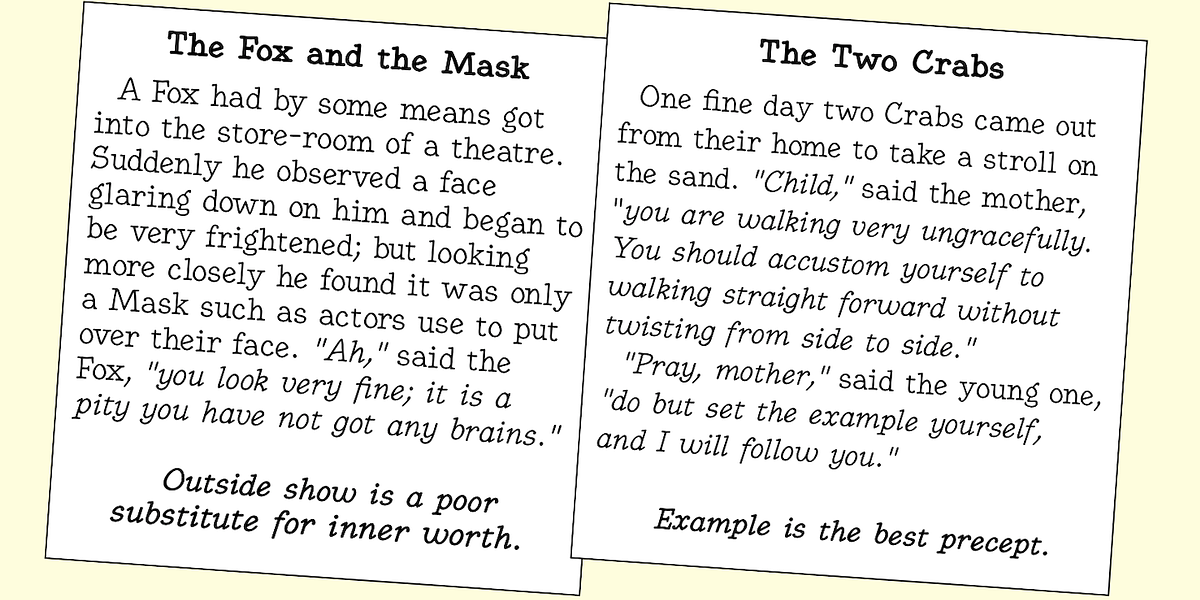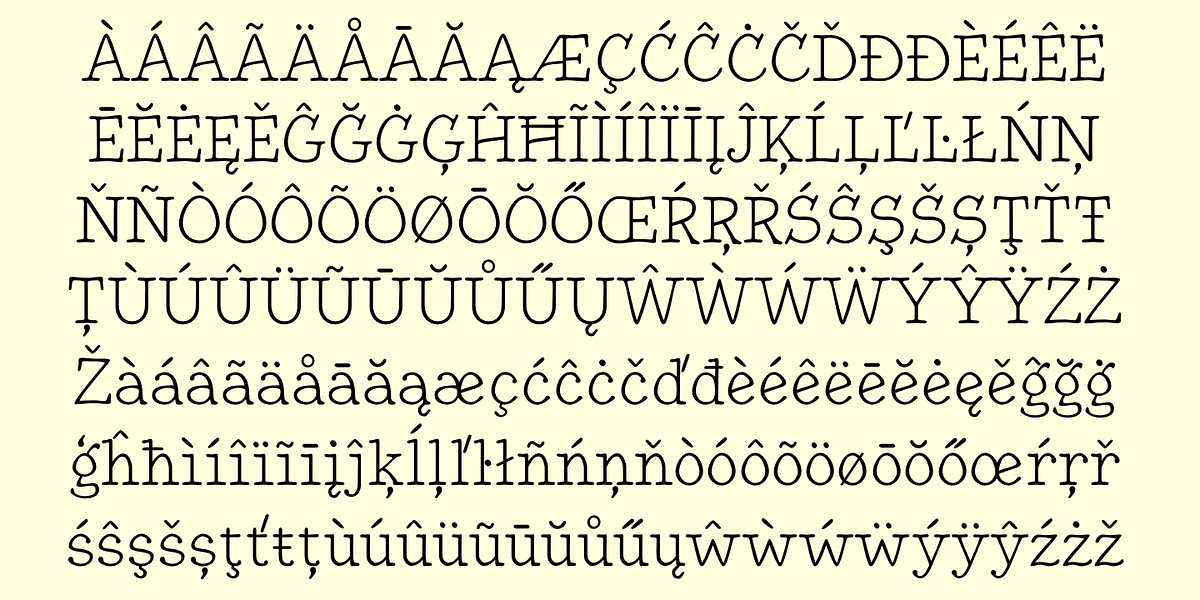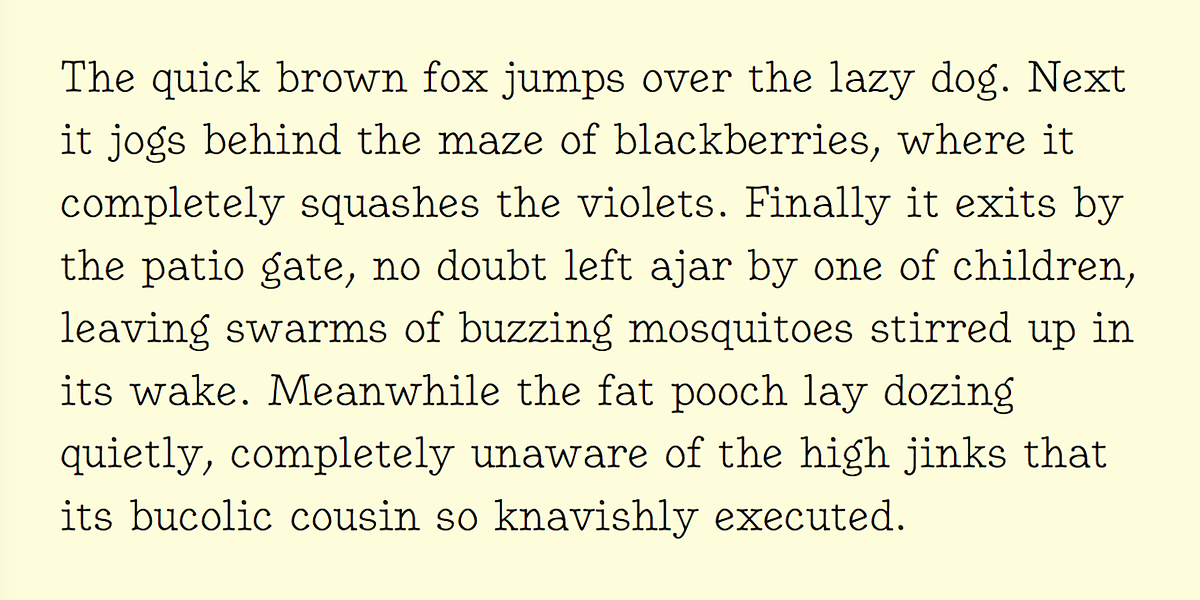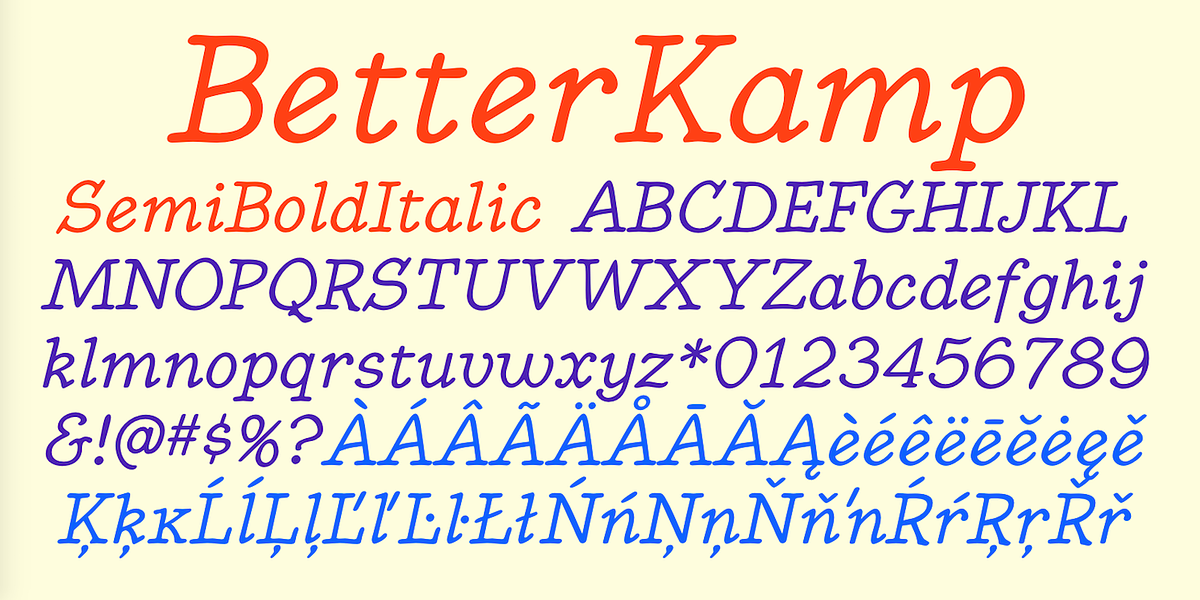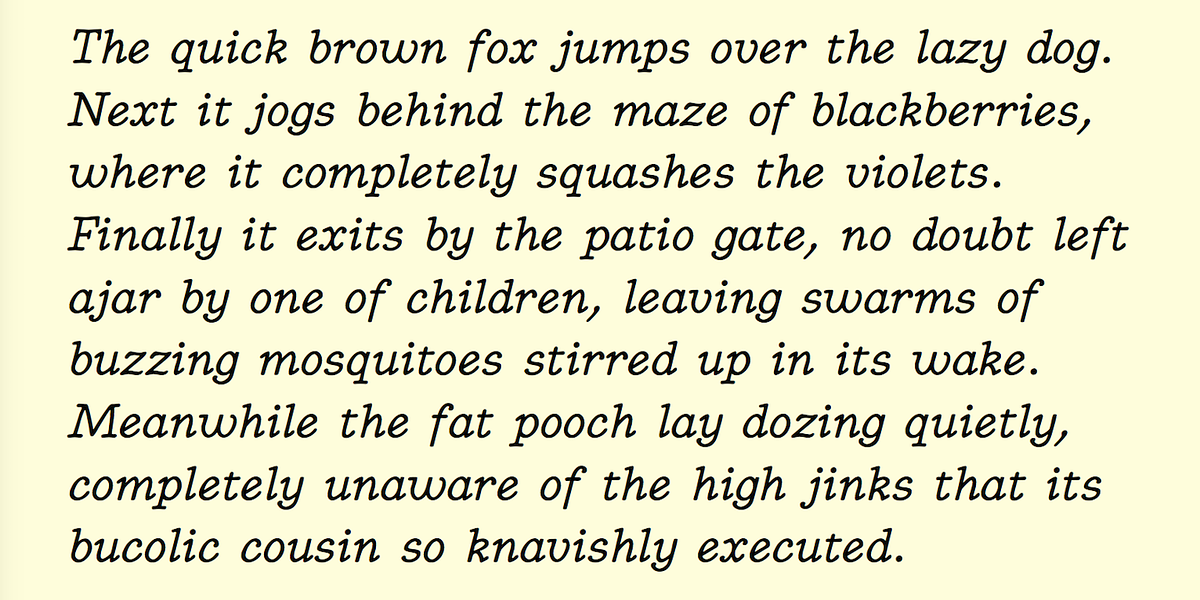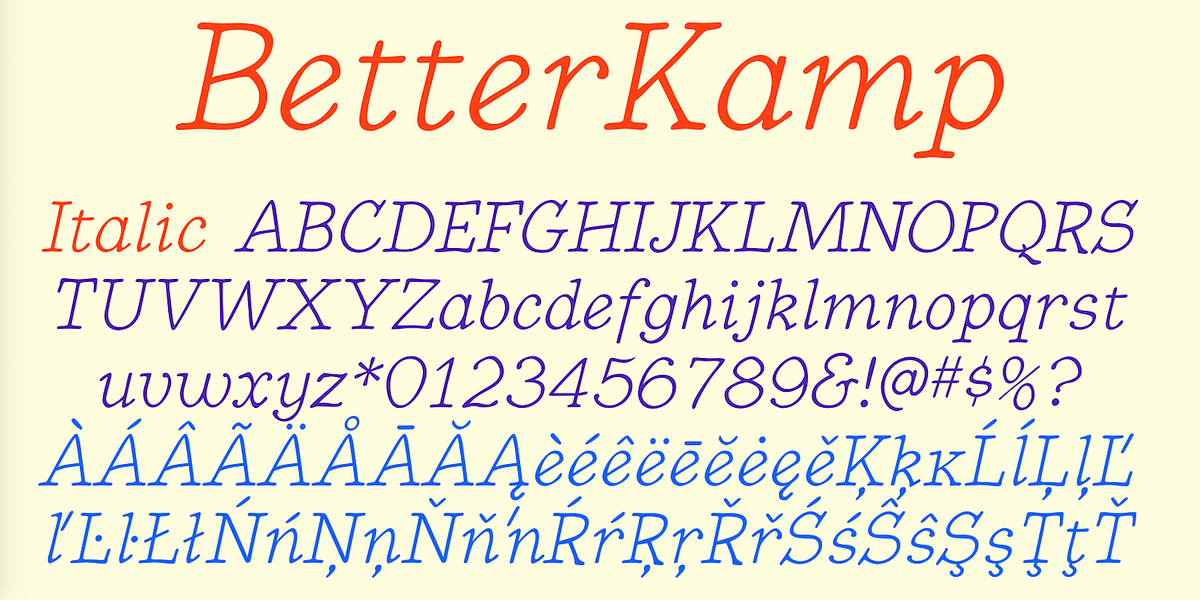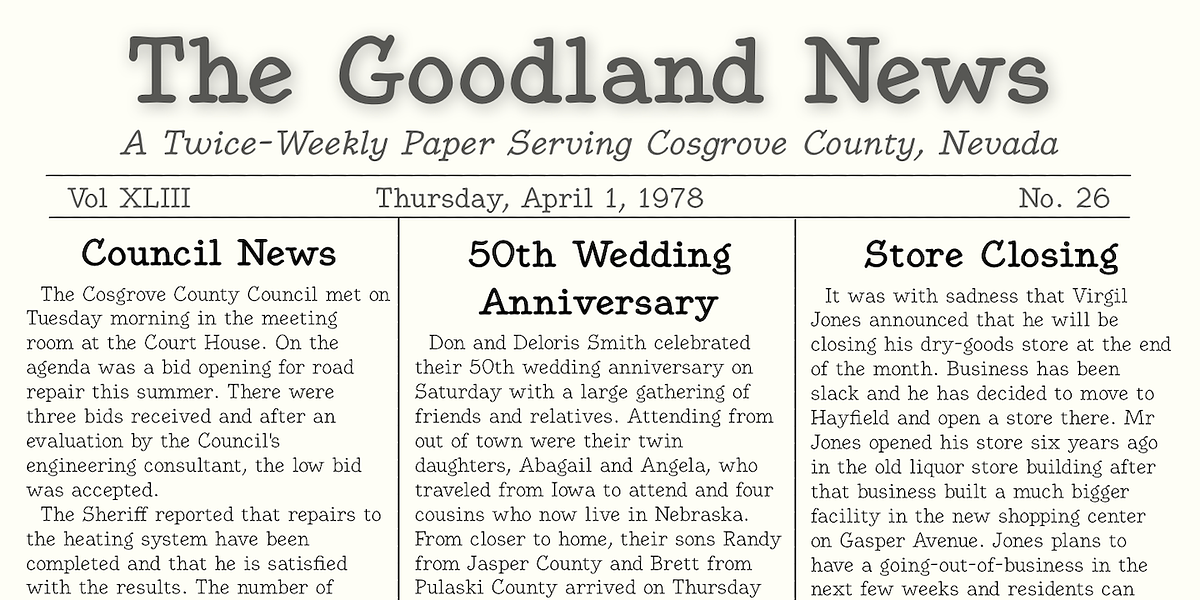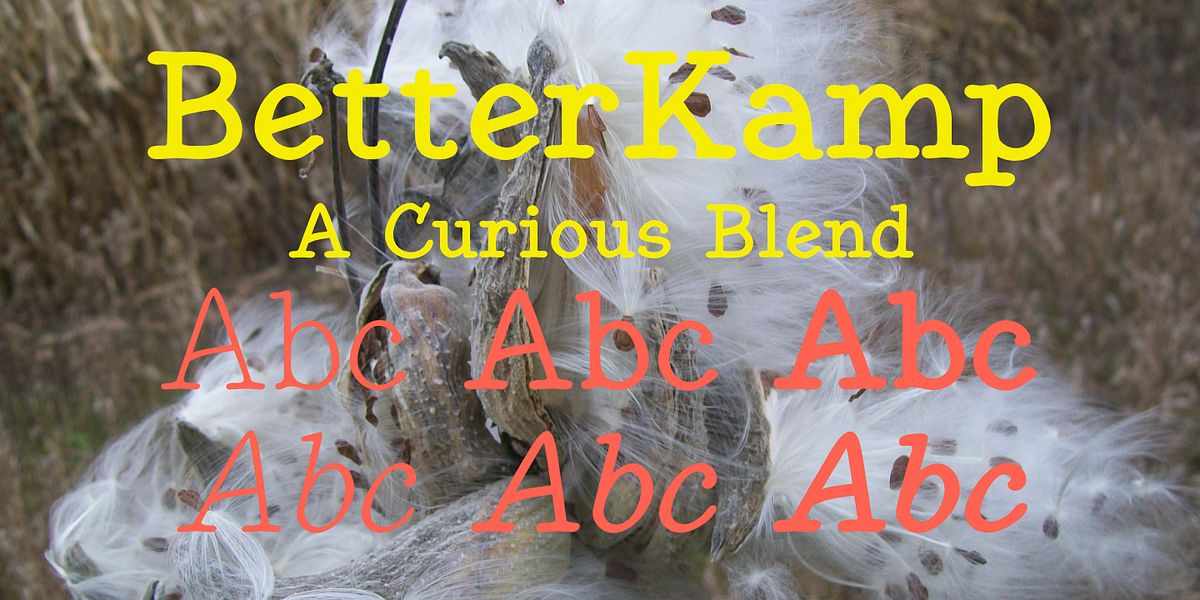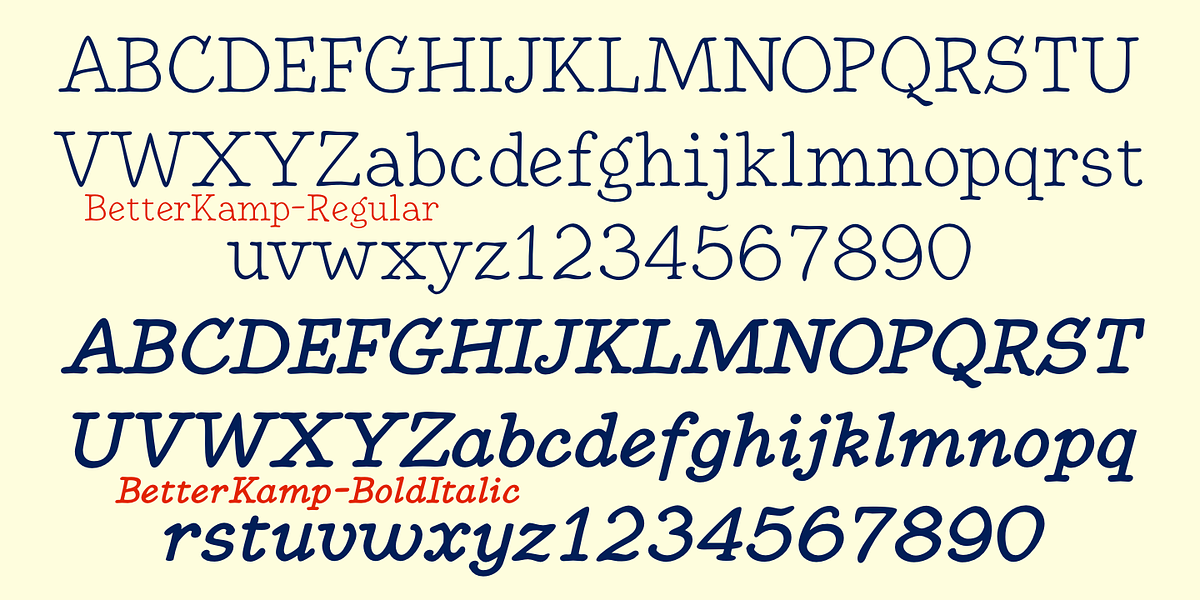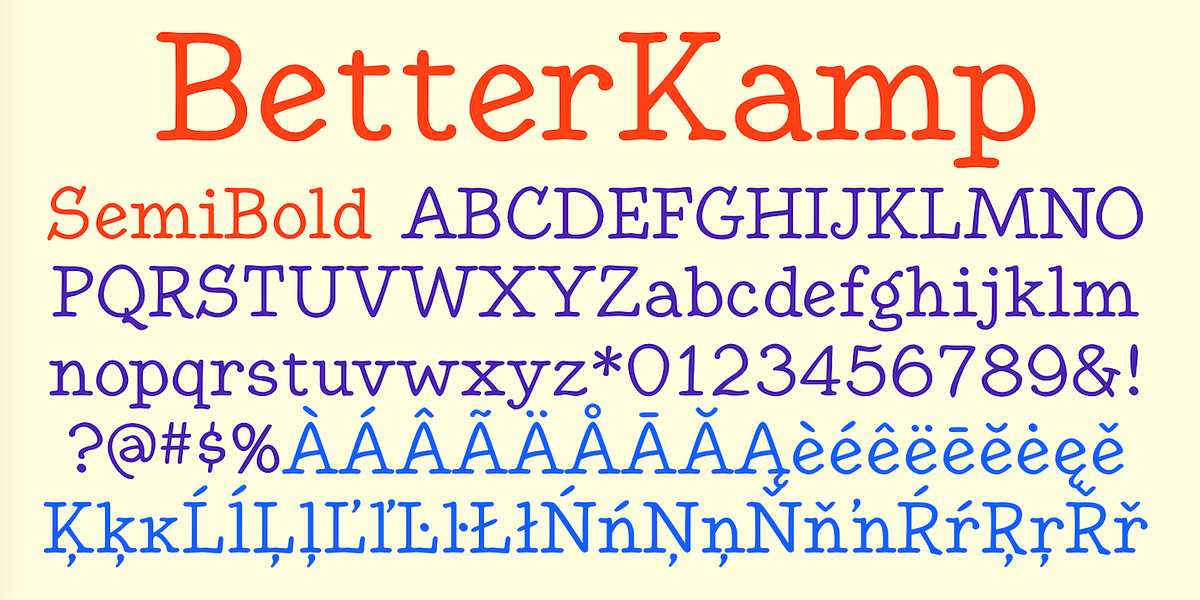
BetterKamp
BetterKamp is a hand-drawn serif font created by blending two distinct typeface styles. It exhibits low contrast and lacks the polish of more traditional serif fonts. Despite its unconventional appearance, BetterKamp remains highly readable at smaller point sizes, making it suitable for display text applications.